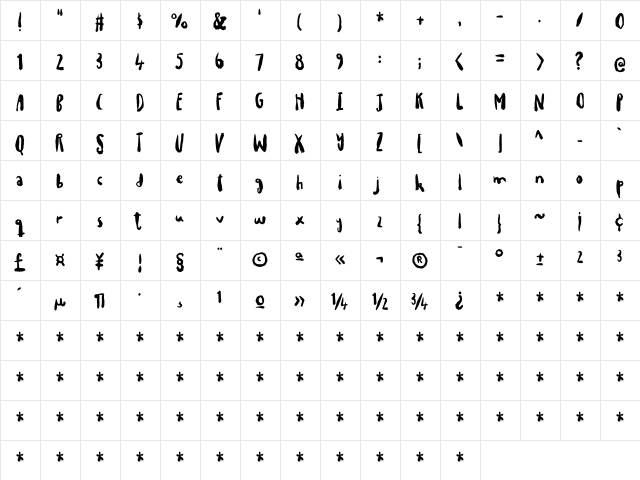
Drillepind DEMO Regular
Design Context for Drillepind DEMO Typeface
Drillepind DEMO is a composed and adaptable typeface that performs quietly and consistently across a wide range of design contexts.